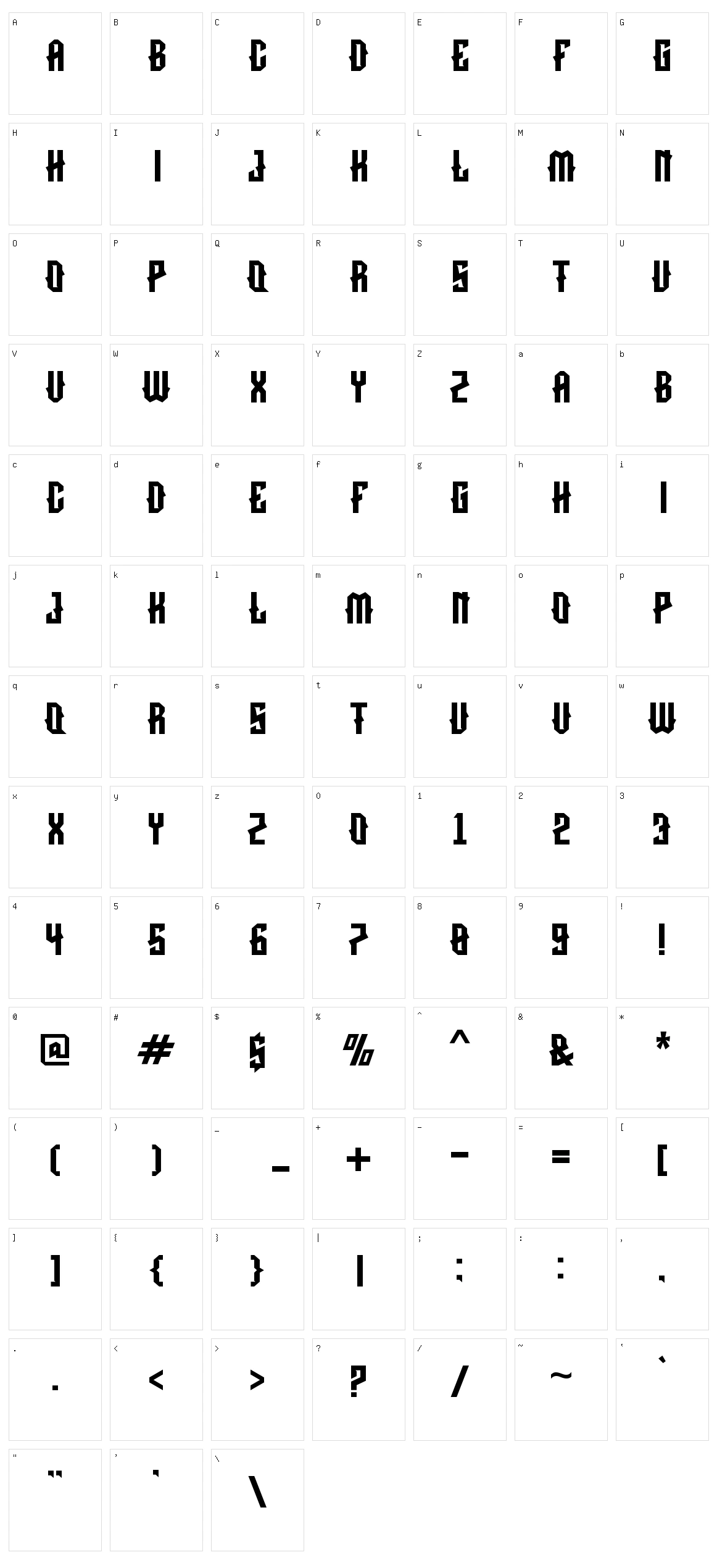
Monshter
Designed by: GFR Creative
Description: The free font Monshter is carefully designed by GFR Creative, showcasing a thoughtful balance of creativity and usability and belongs to the Gothic font family. When you download the ZIP file, it contains only 8.97 KB of font files, making it lightweight and quick to download. Please review the license details below to understand permitted usage and distribution rights. If license information is not available, we recommend using this font for personal projects only or contacting the author directly for commercial usage permissions.